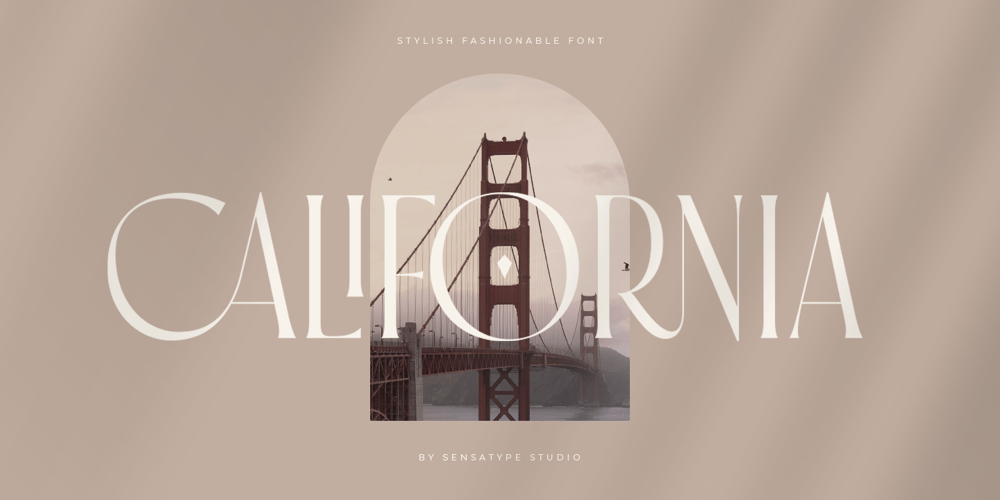
California Dream SS
California Dream SS font
California Dream SS Font Family was designed by Zamroni Hamzah and published by Sensatype Studio. California Dream SS contains 1 styles and family package options. California is a Stylish Fashionable Serif FontA Serif Display font that we created special for classy branding needs, with extra ligature in unique and vintage shape add value of your brand. It’s so nice to leverage designer or product owner that need solutions to make their design look more stylish and fashionable. And specially for California font, We prepared any ligatures, and any alternate characters to help you create unlimited variations for your creative needs.California serif font ready with: Any options to get creative variations (combination of Alternate and Ligatures) Preview as a inspirations that you can do with California font Ready with Lowercase and Uppercase characters Wish you enjoy our font.